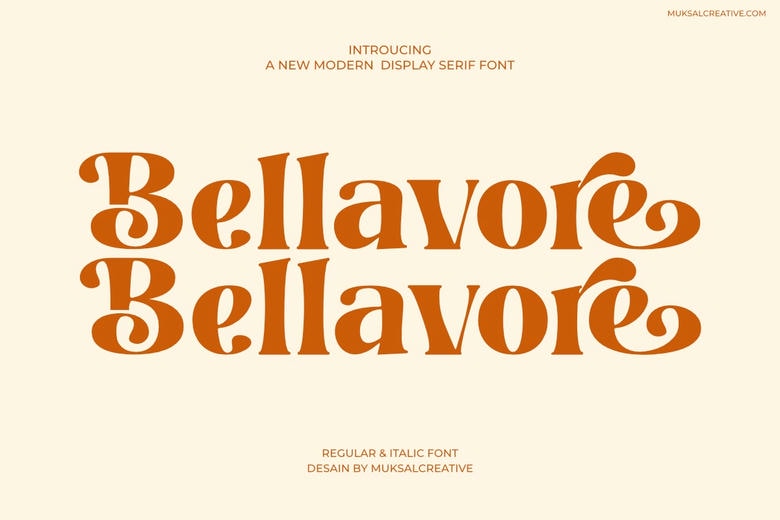
Bellavore Font
Bellavore is a display serif typeface that harmonizes classic style with modern style introducing dramatic decorative serifs and bold thick-thin contrast of stroke to bring out a luxurious and authoritative style. Using versatile alternative characters, it allows imaginative customization of logos, headlines and fine branding- perfect with high-impact projects such as luxurious packaging, posters, editorial layouts or web media.
Huge proportions and detailed precision make it sharp at any scale, optimized to be used on large-scale applications, and ideal where brands are needed with timeless but dynamic personality without loss of legibility.
Bellavore Serif Font